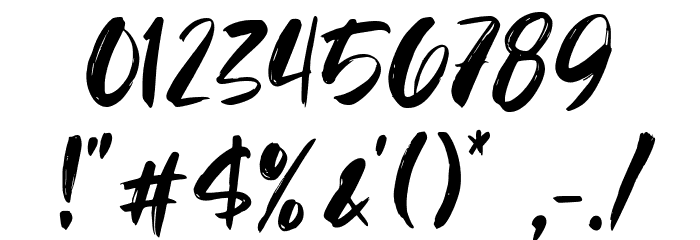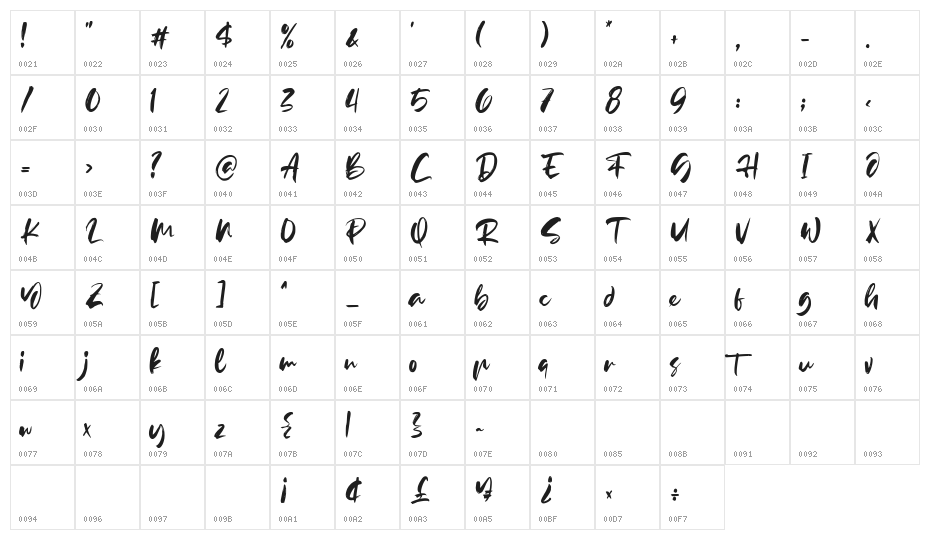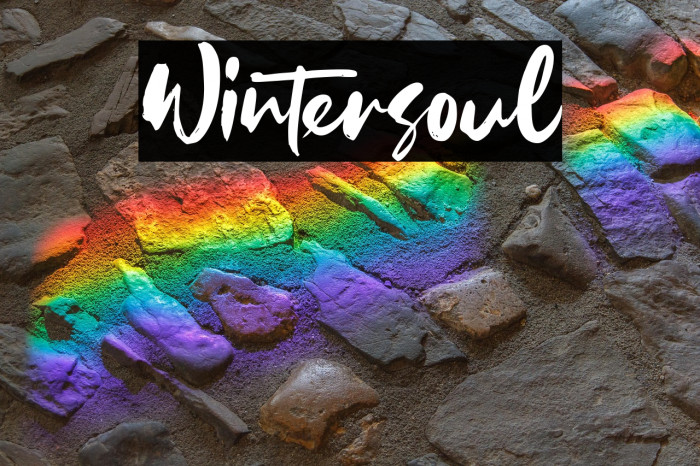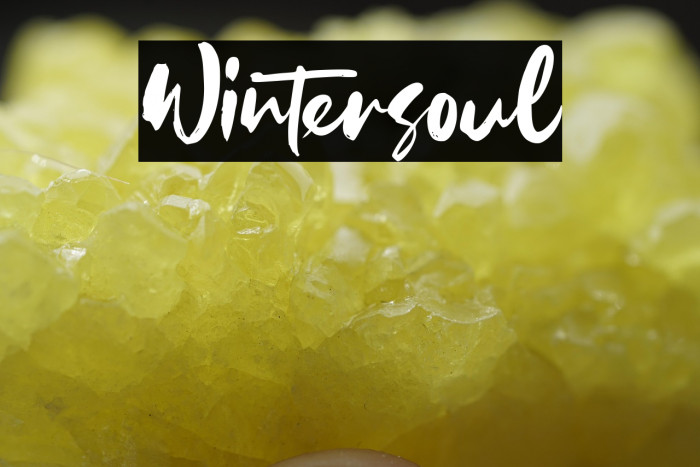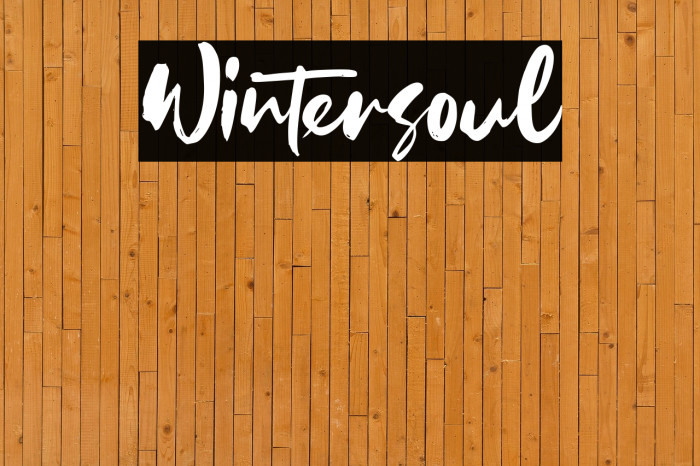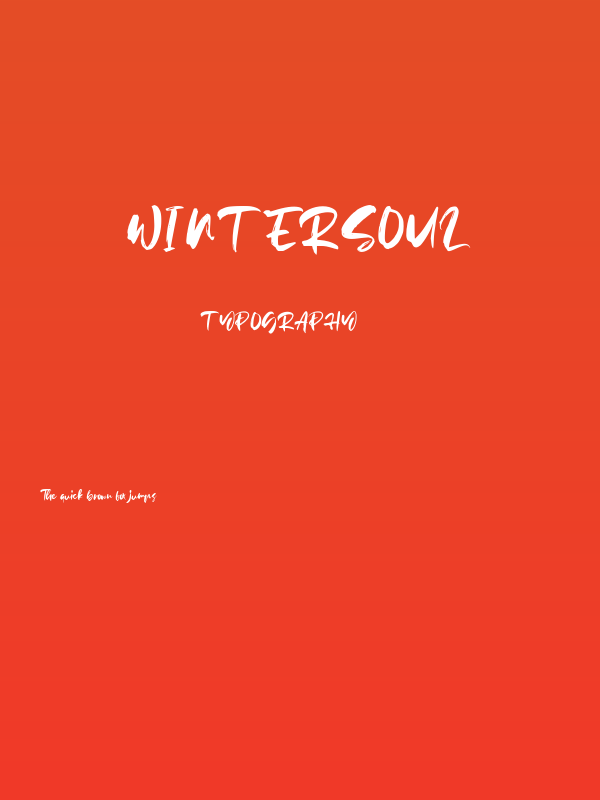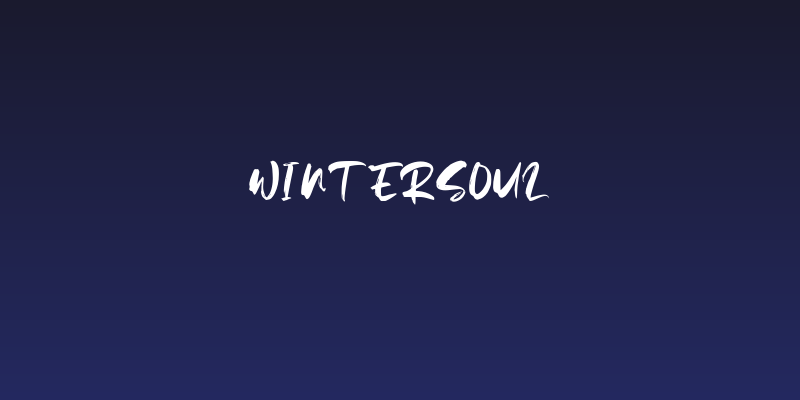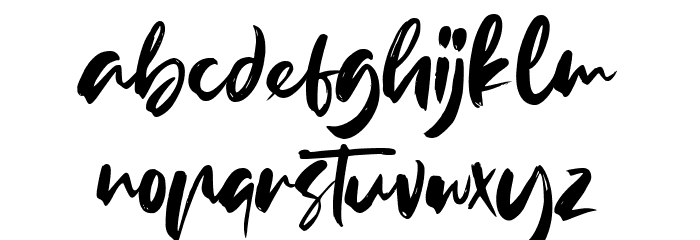
Wintersoul Font
Wintersoul Description
This font exudes a bold and expressive style, characterized by its brush-like strokes and dynamic flow. Each letter is crafted with a sense of movement, giving it a lively and energetic appearance. The uppercase letters are particularly striking, with varying thicknesses that add depth and interest. The lowercase letters maintain a consistent style, complementing the uppercase with their fluid and connected forms. Numbers and special characters are equally bold, ensuring a cohesive look across all elements. This font's artistic flair makes it ideal for projects that require a personal touch or a creative edge.
| Proposed Projects | Ideal for branding, posters, invitations, and creative projects that require a personal and artistic touch. |